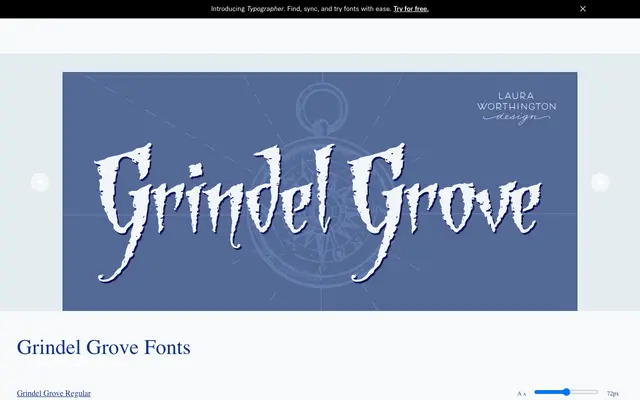
Grindel Grove
A single-weight display face with bark-textured letterforms and pointed strokes, suited to horror, Halloween and gothic-themed design work.
The typeface draws on the visual language of dark forests and cautionary folklore, with v-shaped letterforms and a rough, bark-like surface that gives it an unsettling handcrafted quality. Available in one weight with stylistic alternates, it covers a broad Latin character set including Central and Northern European languages. Best deployed at large sizes on book covers, event posters or branded material where a spooky atmosphere is the explicit goal.
A single-weight display face with bark-like texture and pointed v-shaped letterforms designed explicitly for spooky, atmospheric use. Its ornamental and illustrative character places it firmly in the display/decorative category.